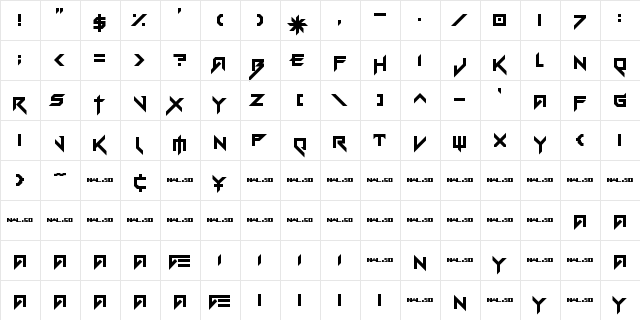
Vermin Vibes eX Regular
| Designer | Andrew McCluskey |
Design Context for Vermin Vibes eX Typeface
Vermin Vibes eX is a composed and adaptable typeface that performs quietly and consistently across a wide range of design contexts.